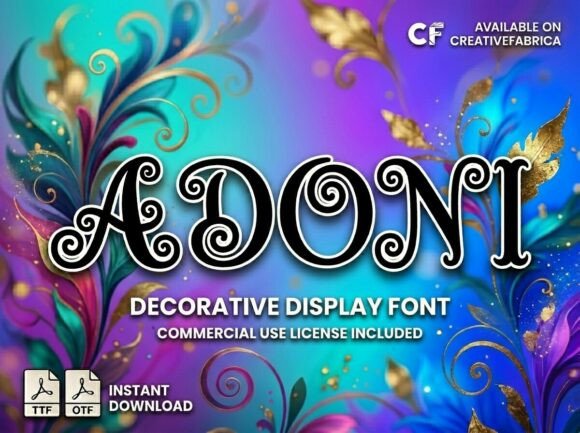
The Enchanting World of Adoni Font: A Designer’s Delight
Have you ever been in the middle of a design project, and suddenly, the perfect font seems elusive? I recall working on a fantasy novel cover, determined to find a typeface that would transport readers to a mystical realm. That’s when I stumbled upon Adoni, a decorative swirl display font that has since become my go-to for enchanting visual storytelling.
Unveiling Adoni: A Masterpiece of Whimsical Elegance
Adoni is more than just a font – it’s an experience. Its bold letterforms, adorned with intricate, curling flourishes and rhythmic “swirl” motifs, capture the authentic essence of artisanal craftsmanship. The playful yet sophisticated silhouette, complete with airy loops, provides a magical aesthetic that’s perfect for fantasy book titles, boutique apothecary branding, celestial-themed stationery, and ethereal social media headers.
What I Love About Adoni ✨
• ✅ Elegant, handcrafted feel that’s perfect for premium branding and editorial design
• 🌟 Unique swirl motifs that add a touch of magic to any design
• 📚 Extensive OpenType features, including stylistic alternates and glyphs, for effortless customization
• 👍 Excellent for fantasy, whimsy, and luxury-themed projects
While Adoni is an exceptional font, there are a few things to keep in mind:
• 🤔 May not be the best choice for body text or long-form content due to its decorative nature
• ⚠️ Some swirl motifs may not work well at smaller font sizes
The Story Behind Adoni: A Glimpse into the Designer’s Inspiration
Adoni was born from a passion for artisanal craftsmanship and a love for fantasy storytelling. The designer, inspired by ancient mythologies and mystical creatures, sought to create a font that would transport readers to enchanted realms. With Adoni, they aimed to craft a typeface that would not only be visually stunning but also evoke a sense of wonder and magic.
Q: What makes Adoni unique?
A: Adoni’s unique blend of bold letterforms, intricate flourishes, and rhythmic swirl motifs sets it apart from other decorative fonts.
Q: Is Adoni suitable for body text or long-form content?
A: While Adoni is an exceptional font, it’s not ideal for body text or long-form content due to its decorative nature. It’s best used for titles, headings, or short paragraphs.
Q: Can I customize Adoni’s OpenType features?
A: Yes, Adoni features extensive OpenType capabilities, including stylistic alternates and glyphs, allowing for effortless customization.